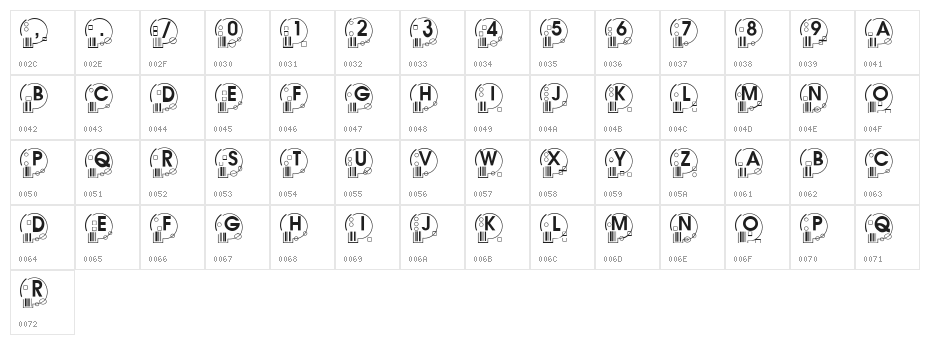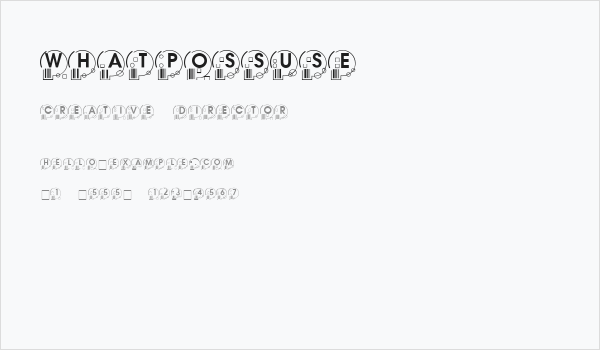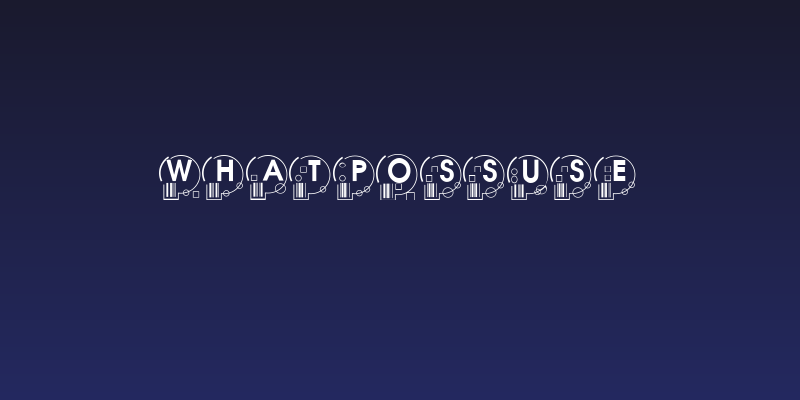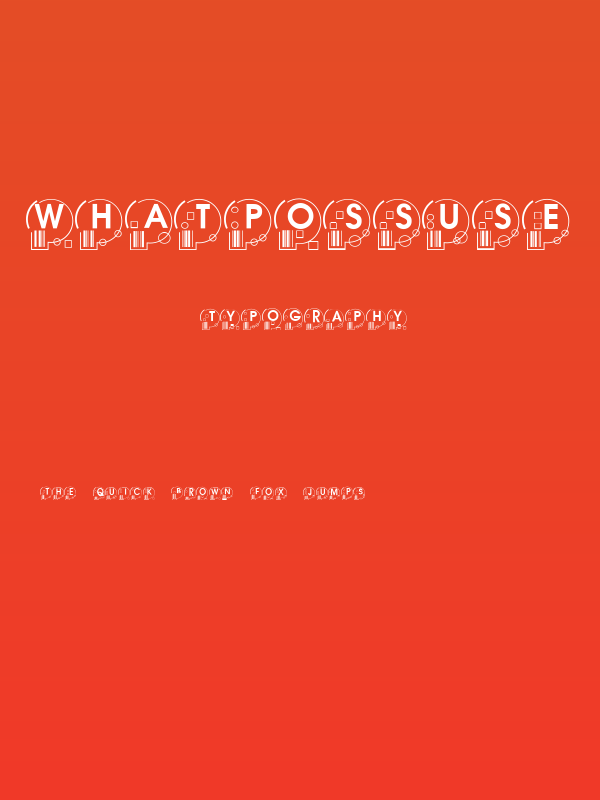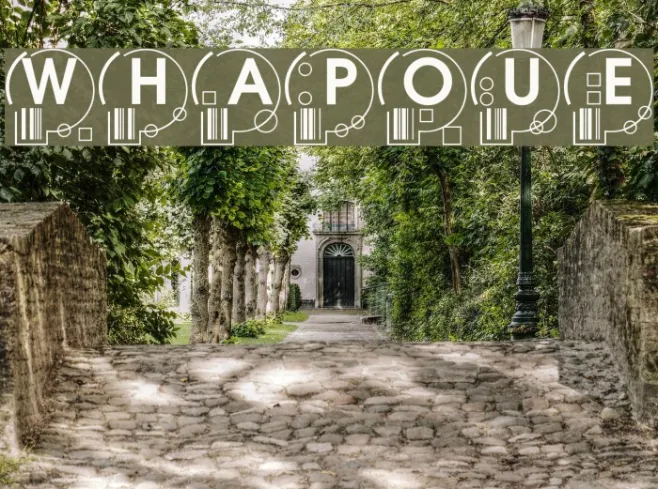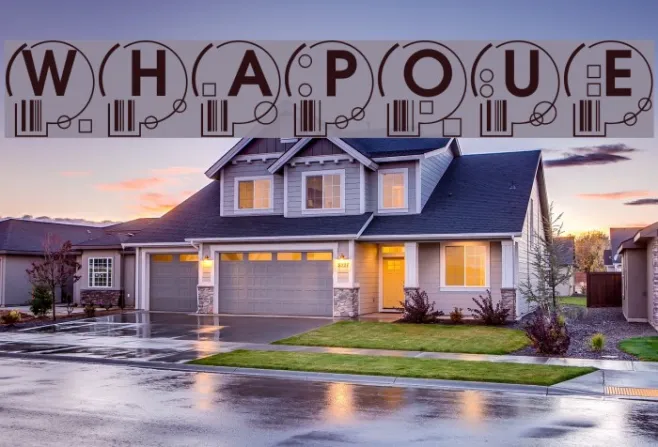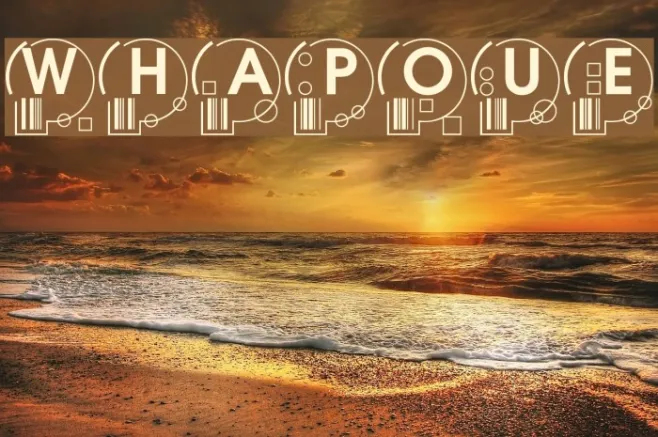
WhatPossUse Font
WhatPossUse Description
This font features a unique and futuristic design, incorporating geometric shapes such as circles, squares, and lines into each character. The letters and numbers are enclosed within circular outlines, giving them a distinct and cohesive appearance. The use of additional geometric elements within each character adds a layer of complexity and modernity, making it stand out as a decorative typeface. The overall design is symmetrical and balanced, with consistent use of shapes across all characters. This font is ideal for projects that require a modern and technological aesthetic, offering a visually engaging experience.
| Proposed Projects | Ideal for tech-themed designs, sci-fi posters, video game titles, and modern branding. |